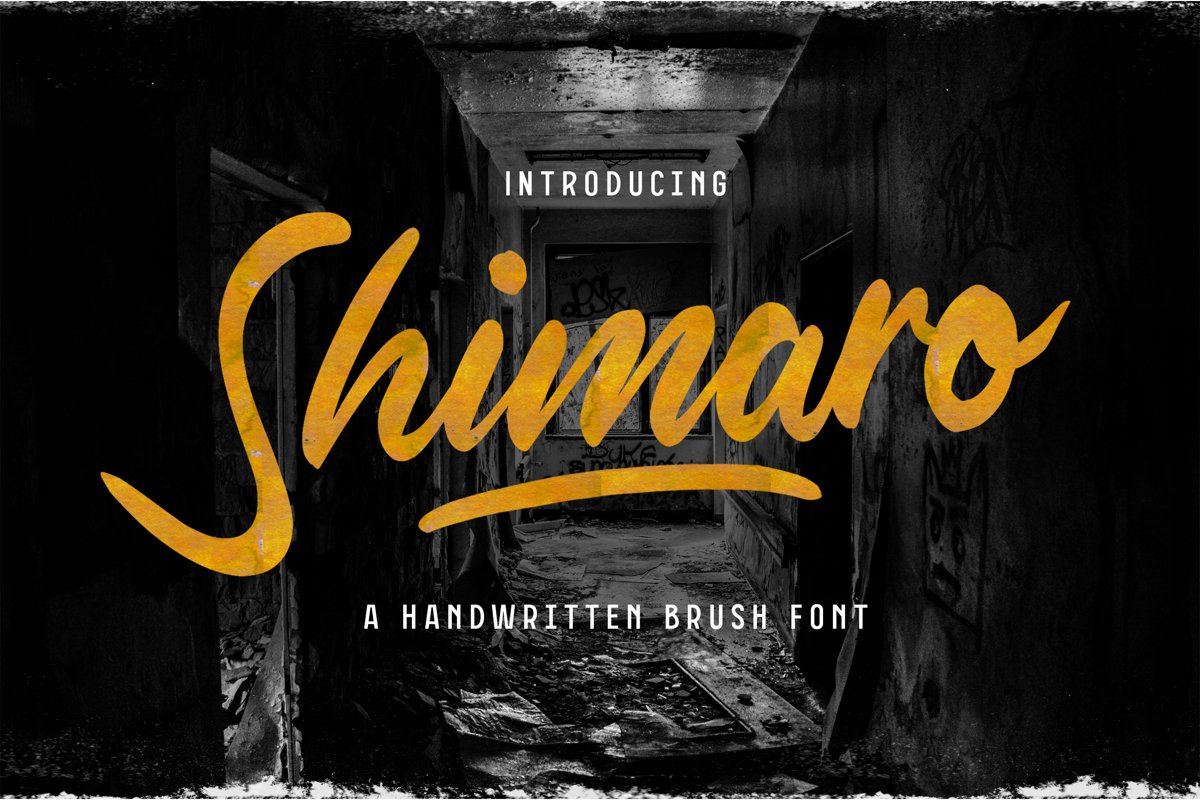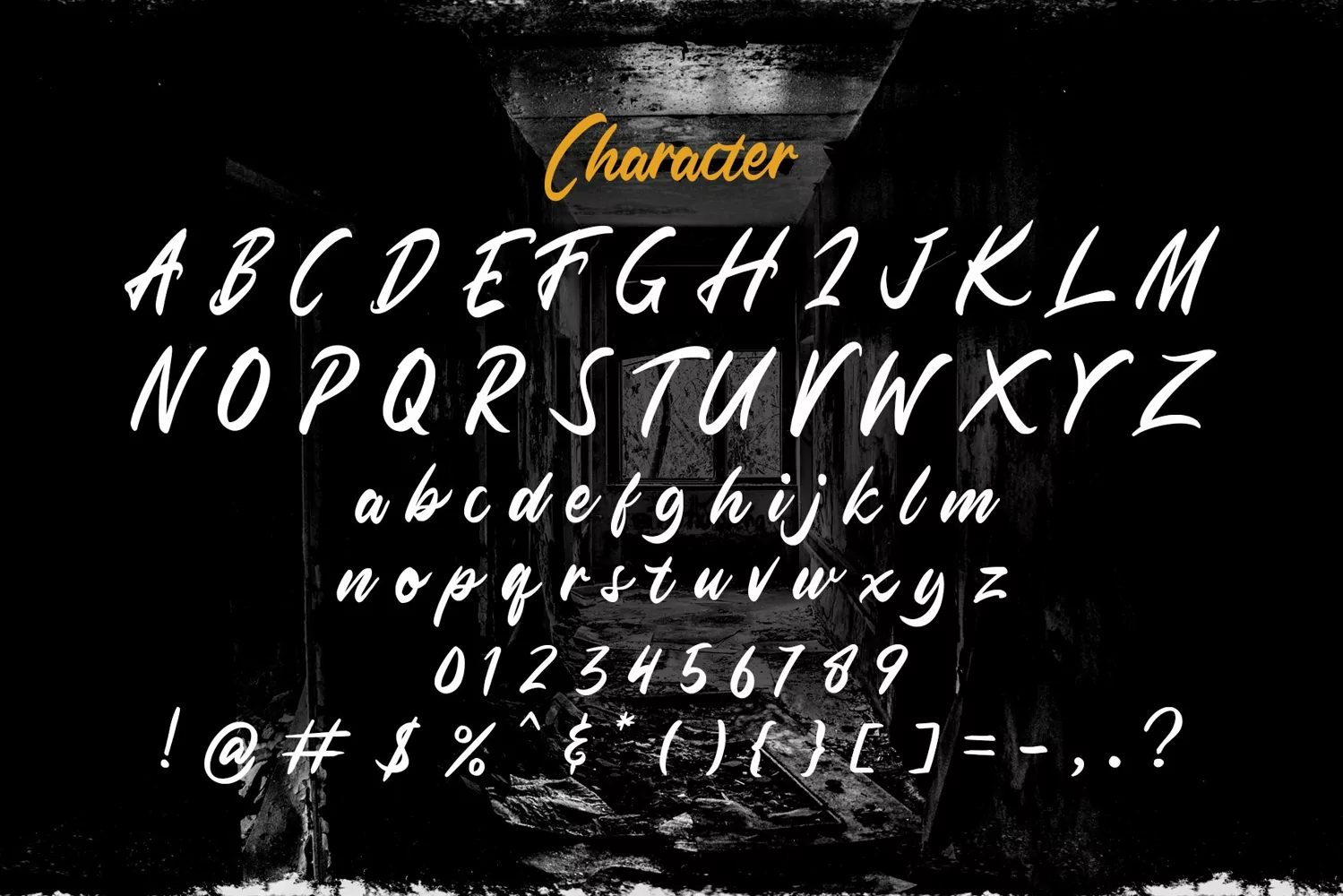
Shimaro is a brush typeface. Perfect for display, quotes, header, tittle, packaging, merchandise, logo, logotype, badges, emblem, business card, urban, magazine cover, and many more.